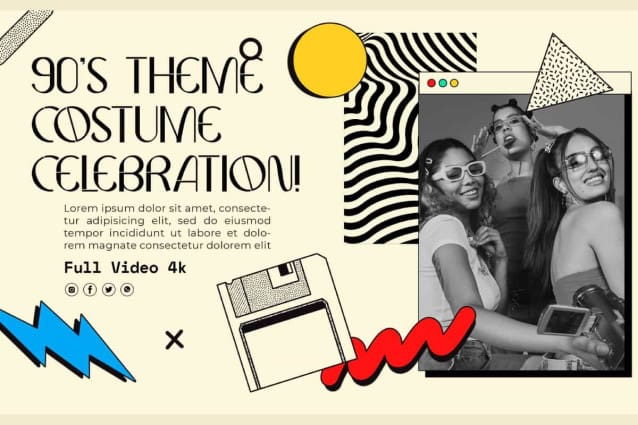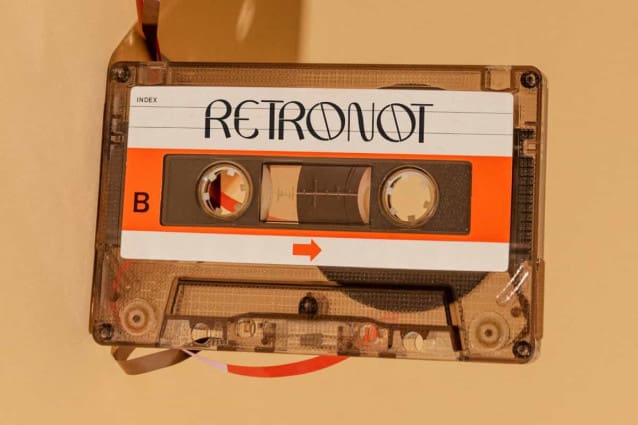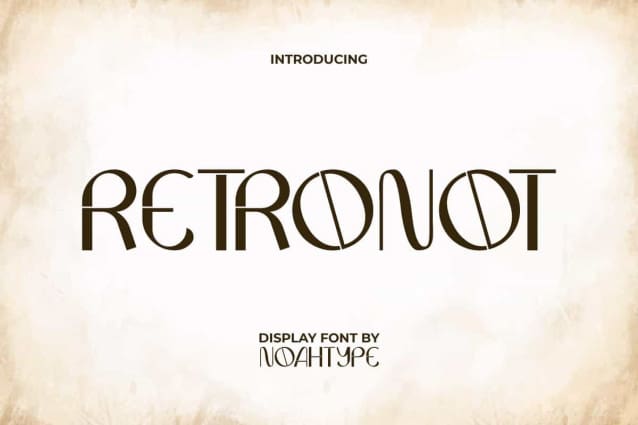
Retronot Font
Retronot Font is a retro galaxy themed display font designed by NoahType Studio. A retro type font like this can bring your design to that era and will never be boring. It will be perfect for any designs, such as brand image, cover, custom design, invitation, label, marketing material, menu, poster, product packaging, quote, signage, stationery, web, and many more!
Retronot Font includes full set of Uppercase and Lowercase Basic Characters, Numerals, Punctuation, and Symbol. The slightly funky vintage vibe of this font will provide an authentic look and is also a perfect choice for many industries, such as accessories, advertising, event or festival, fashion, florist, furniture, game, printing, publishing, etc.